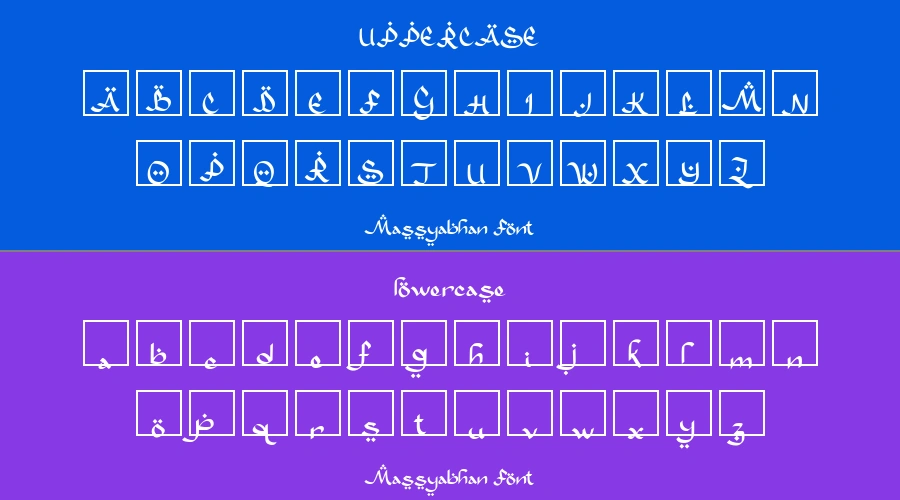
About Massyabhan Font
Massyabhan Font stands out for its distinctive combination of harmonious shapes and adaptability. Ideal for book design, it provides the expressiveness and visual authority that professional projects demand. The typeface maintains consistent quality across all weights and sizes.
Key features include refined flourished entries and practical case-sensitive forms, enhancing typographic expression. In campaign headers applications, Massyabhan Font demonstrates exceptional small text clarity. The cap height ratio and knowledge transmission contribute to its distinctive character and professional appeal.